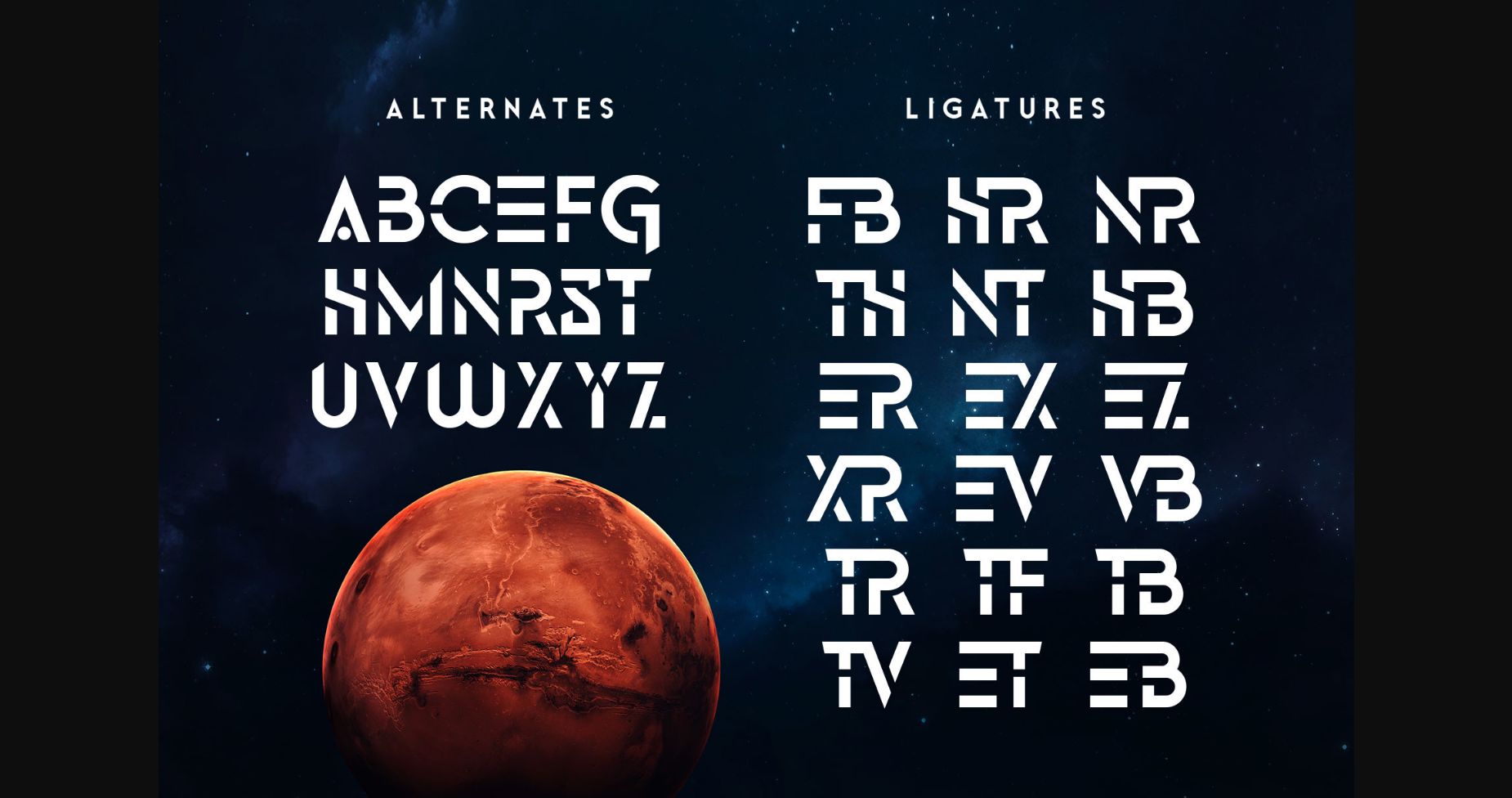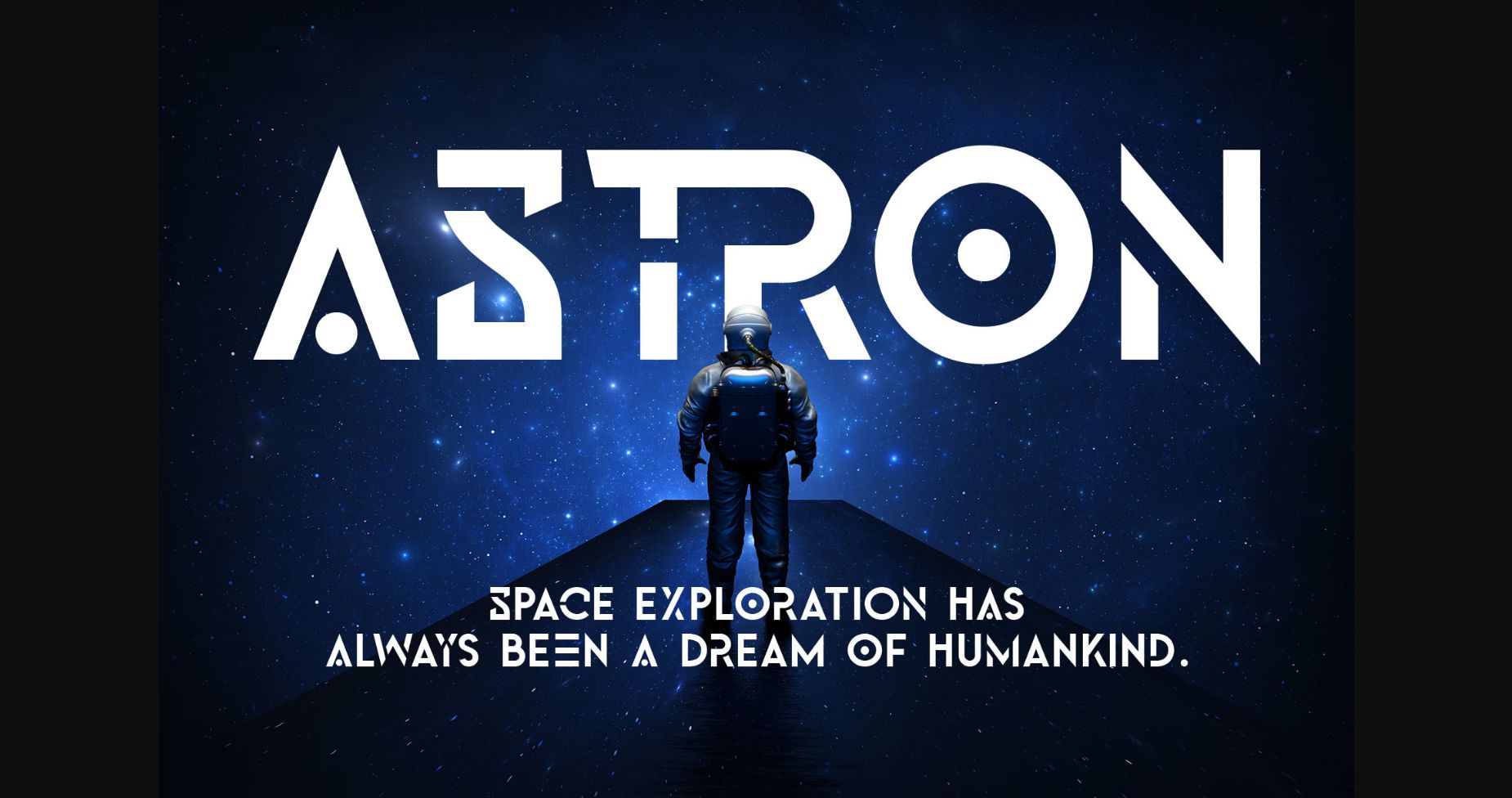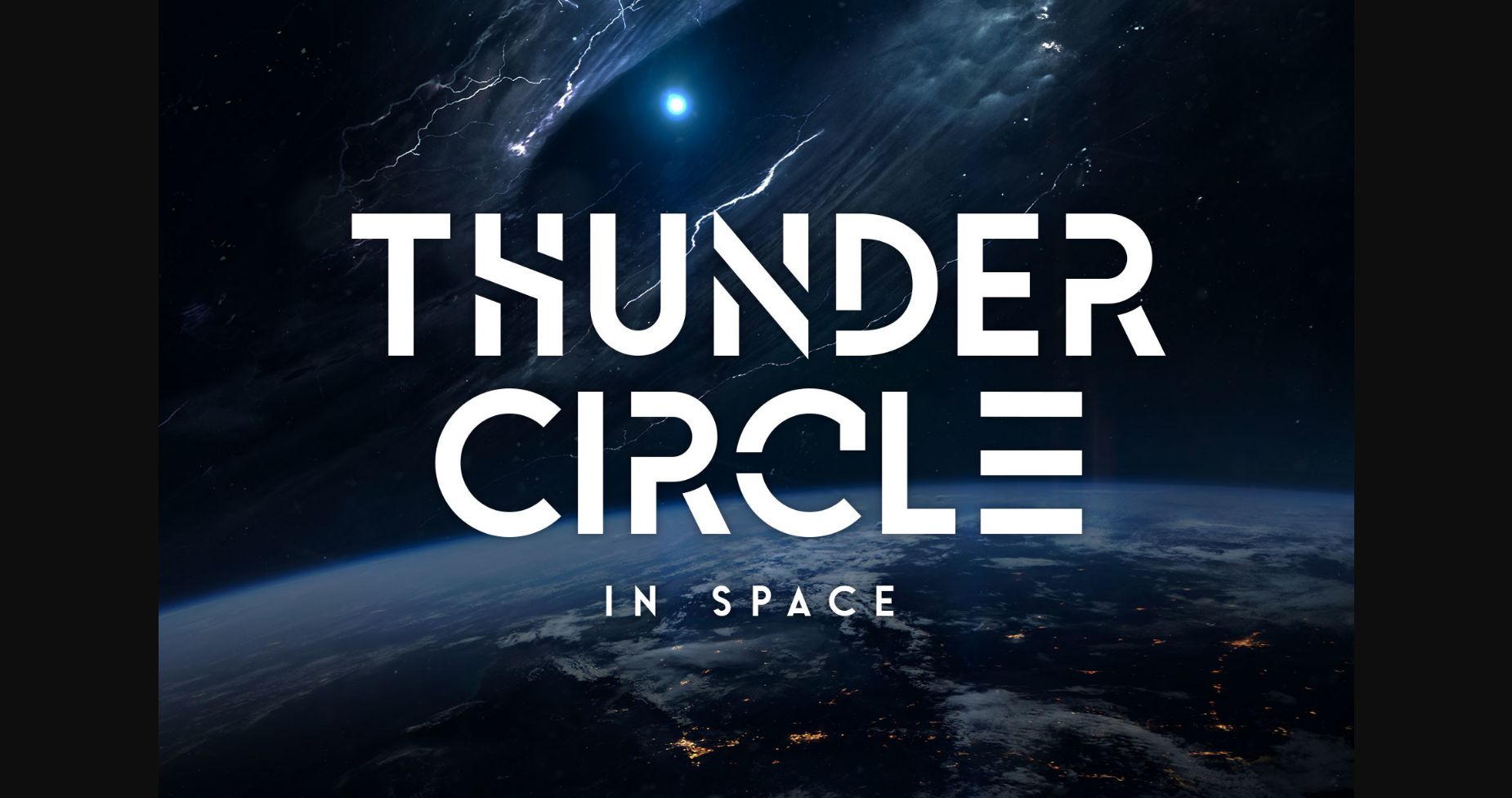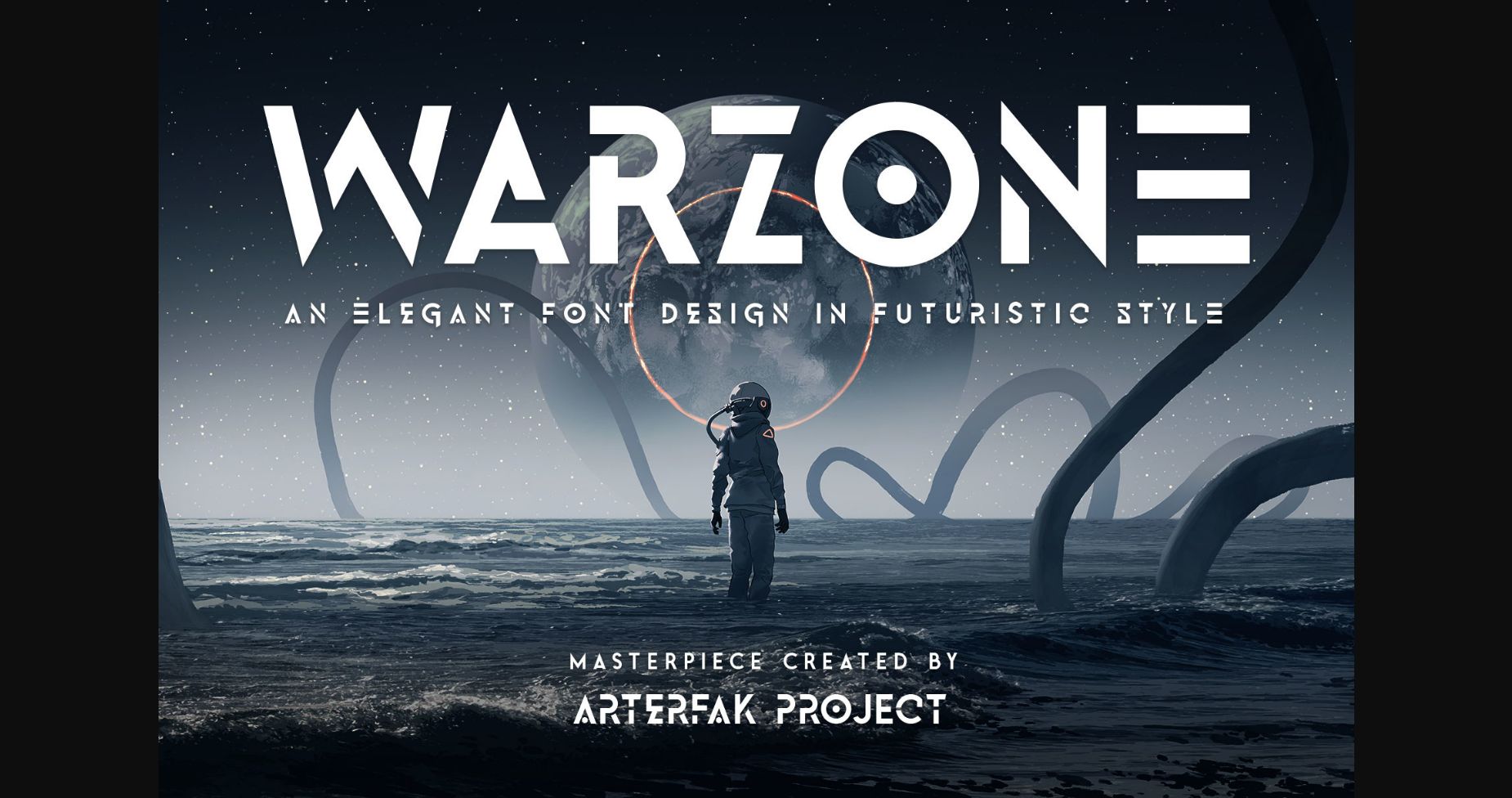
About Warzone Font
Warzone is a cool and futuristic sans serif font. This modern and bold vibe can easily apply to your favorite designs that require a sci-fi touch. This font is PUA encoded which means you can access all of the amazing glyphs and ligatures with ease!